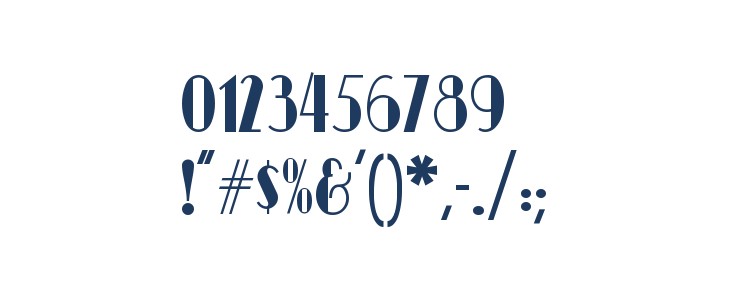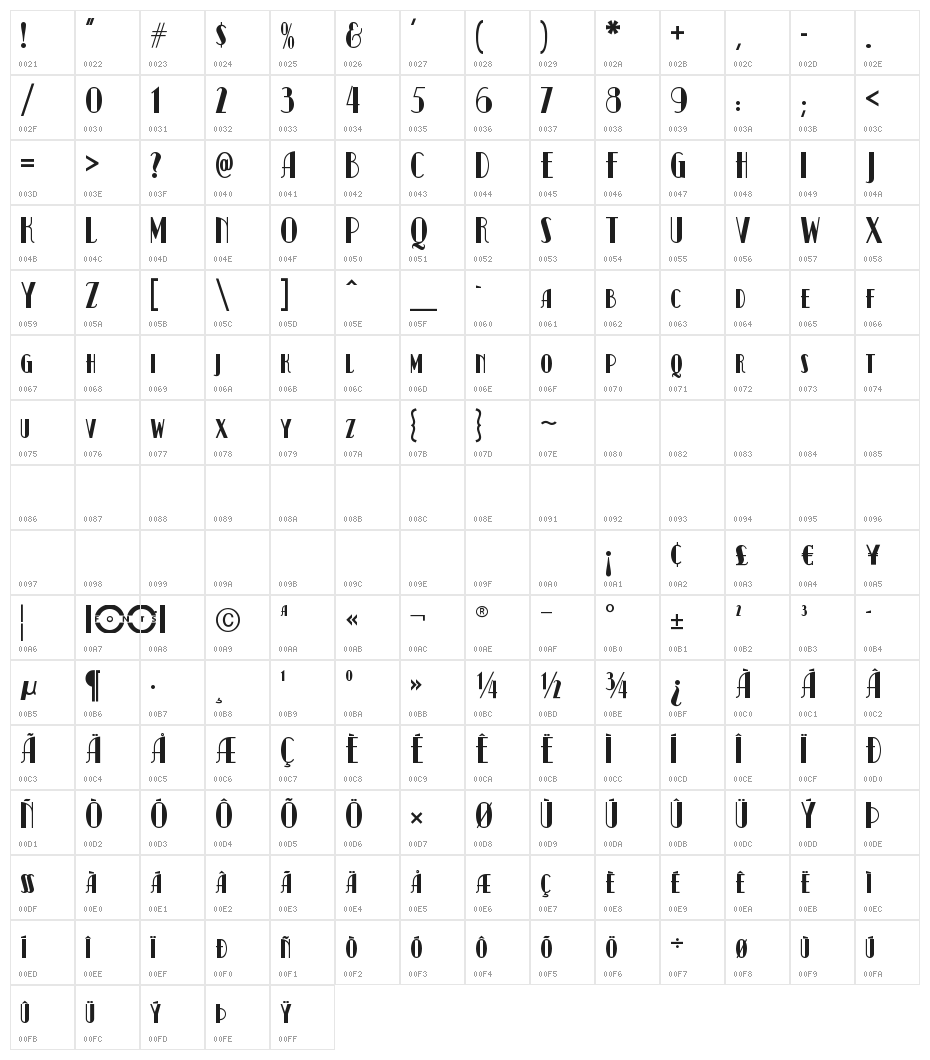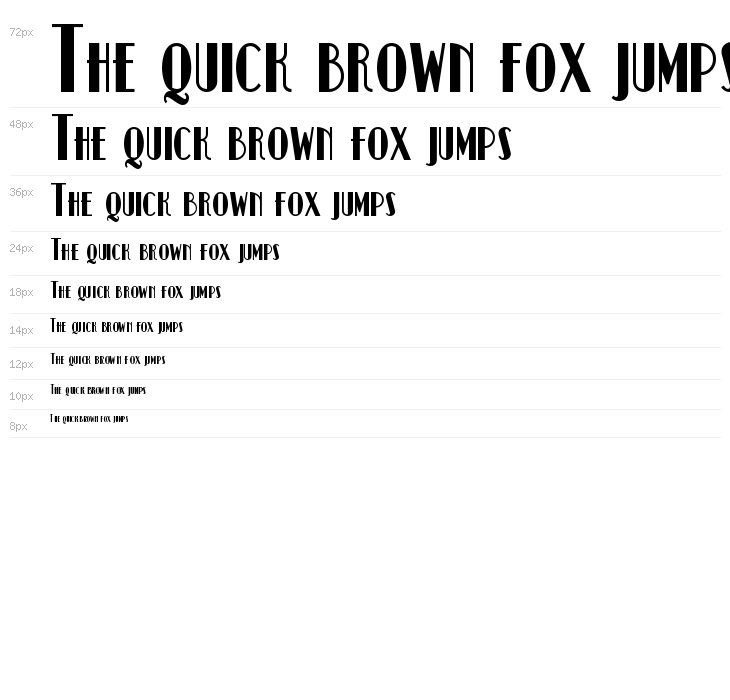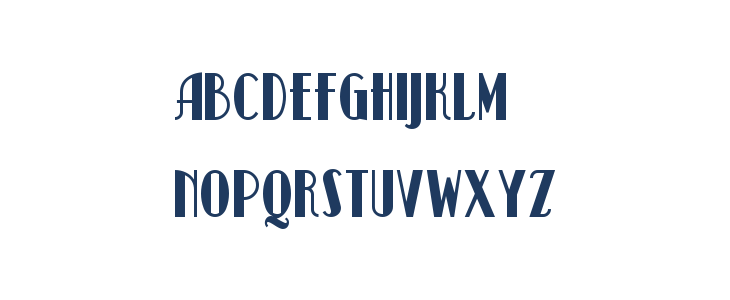
KismetNF Font
KismetNF Description
This font features a bold and dynamic style with a distinct Art Deco influence. The characters exhibit a high contrast between thick and thin strokes, creating a dramatic and eye-catching appearance. The uppercase letters are particularly striking, with elongated verticals and sharp angles that convey a sense of elegance and sophistication. The lowercase letters maintain the same boldness, ensuring consistency throughout the typeface. The numerals are equally bold, with a unique flair that complements the overall design. Special characters are included, each designed to match the font's distinctive style, making it versatile for various design needs.